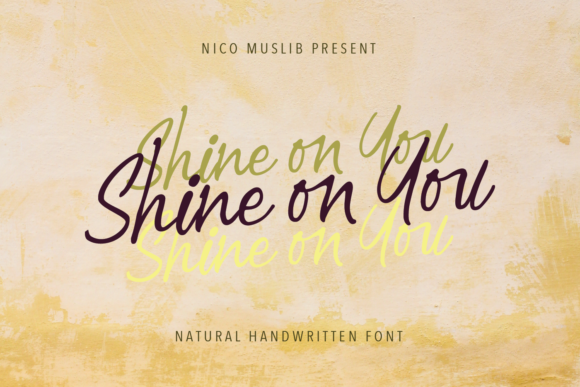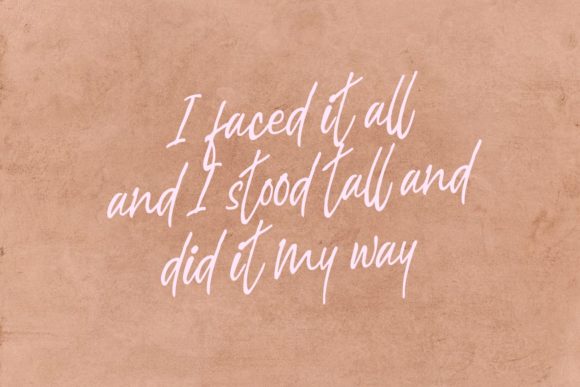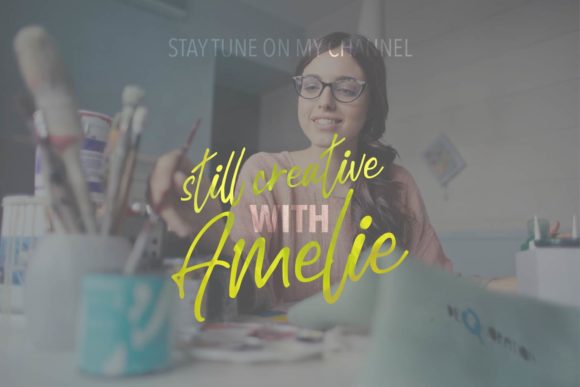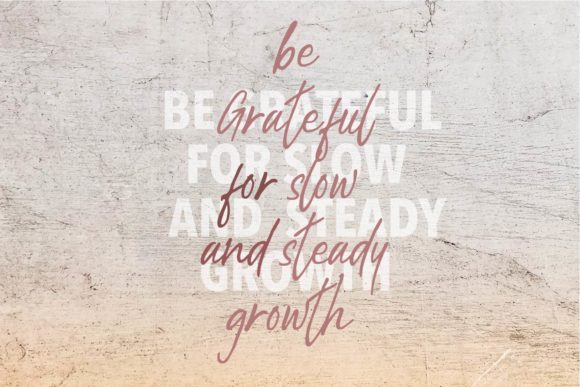
Shine on You Font
About Shine on You Font
Shine on You is a sweet and friendly handwritten font. Its natural and unique style makes it incredibly fitting for a large pool of designs. The only limit is your imagination!